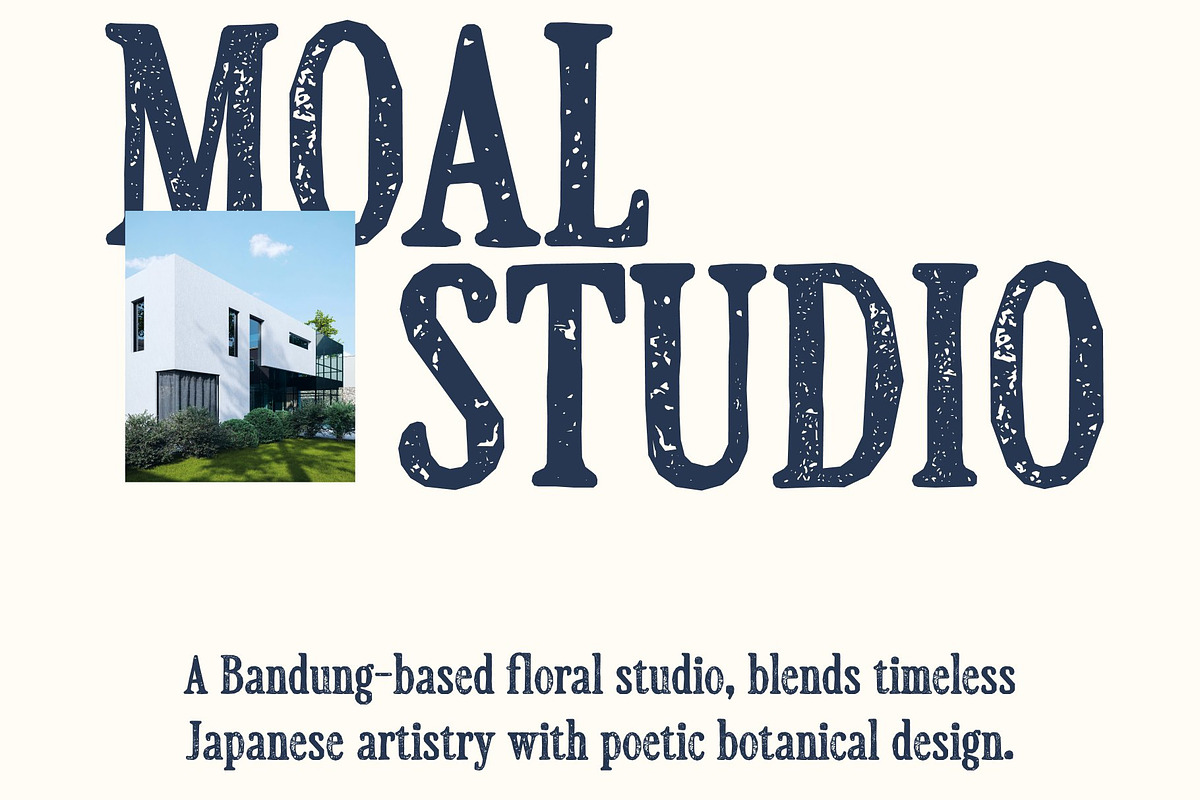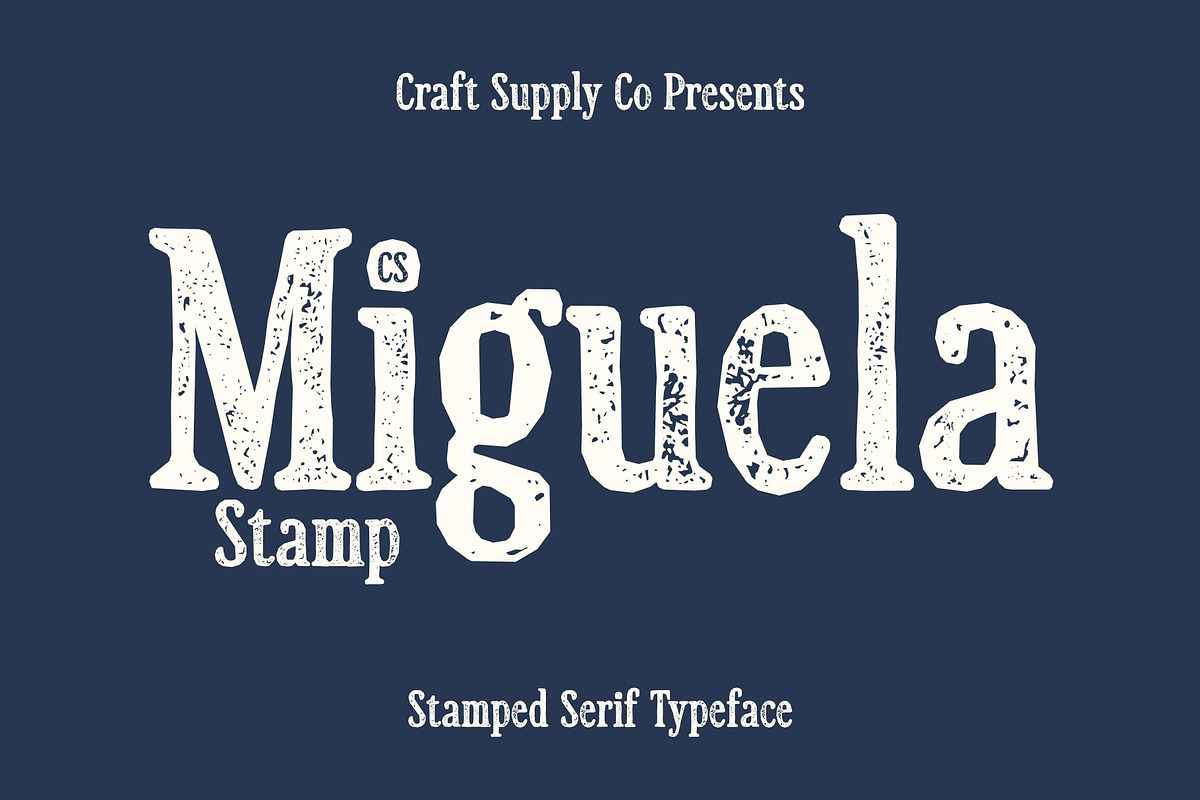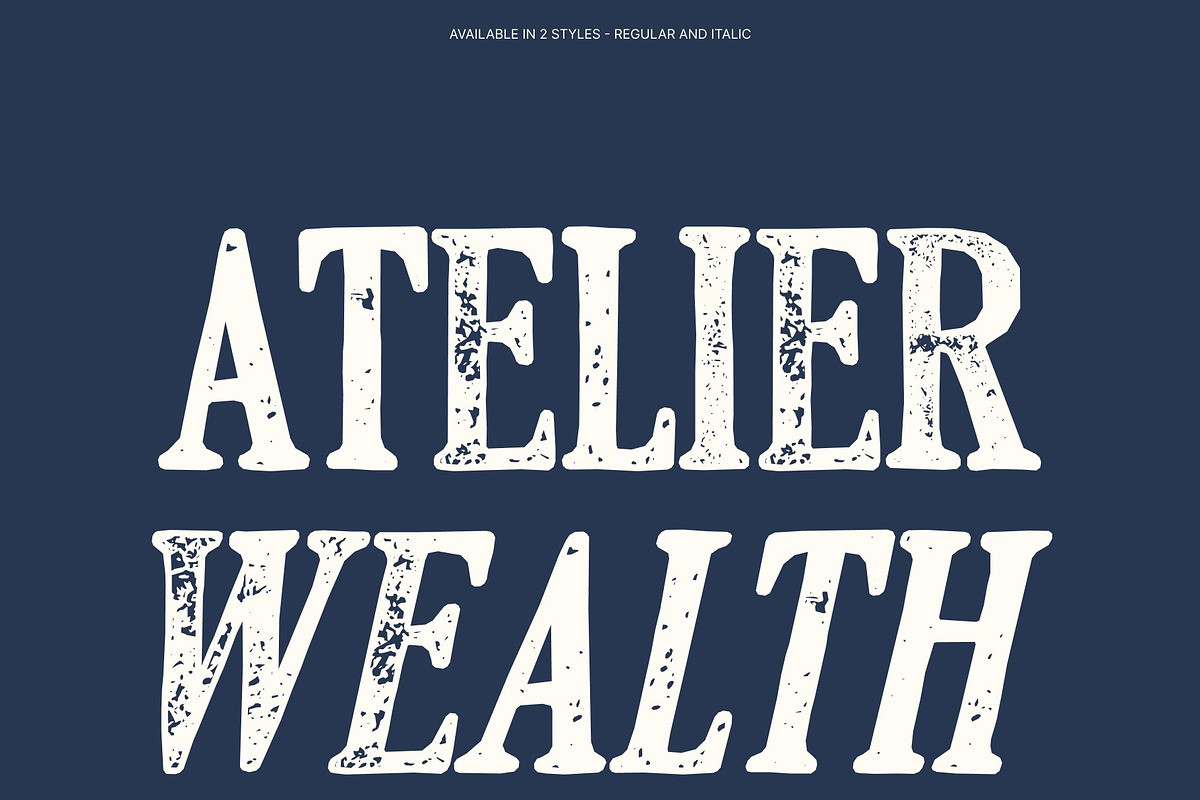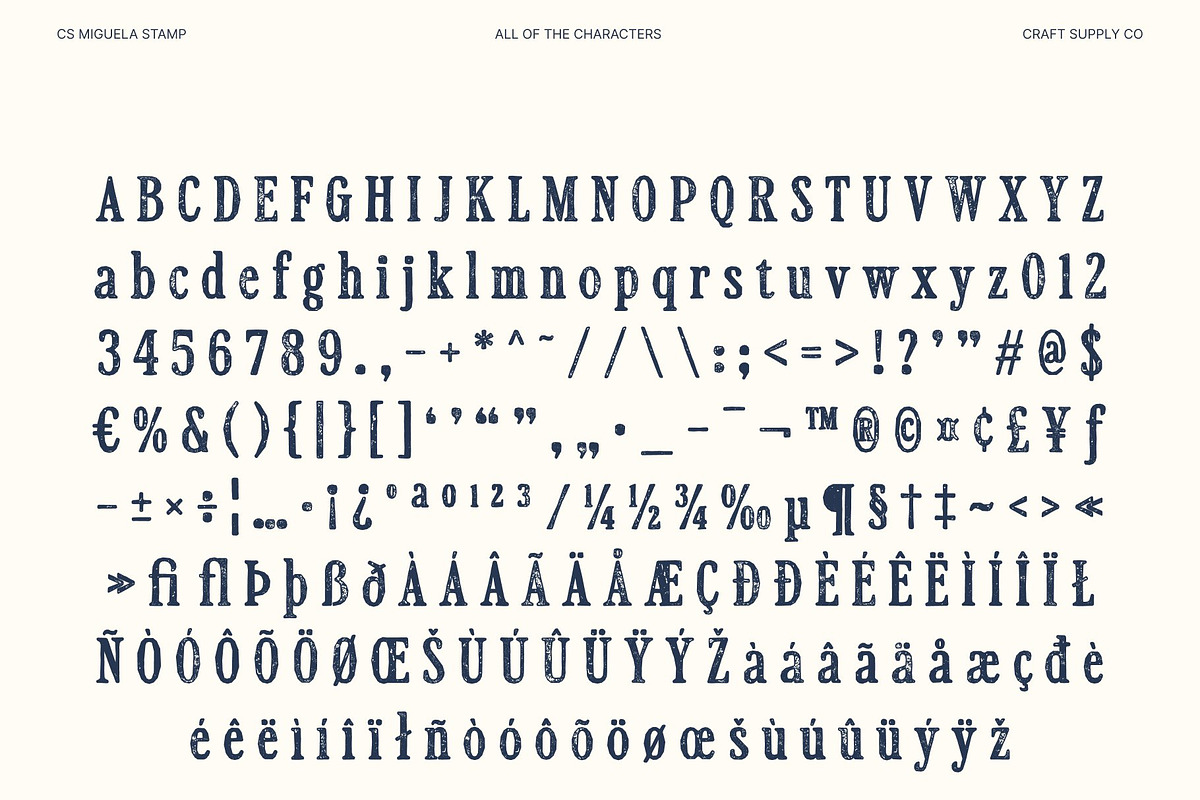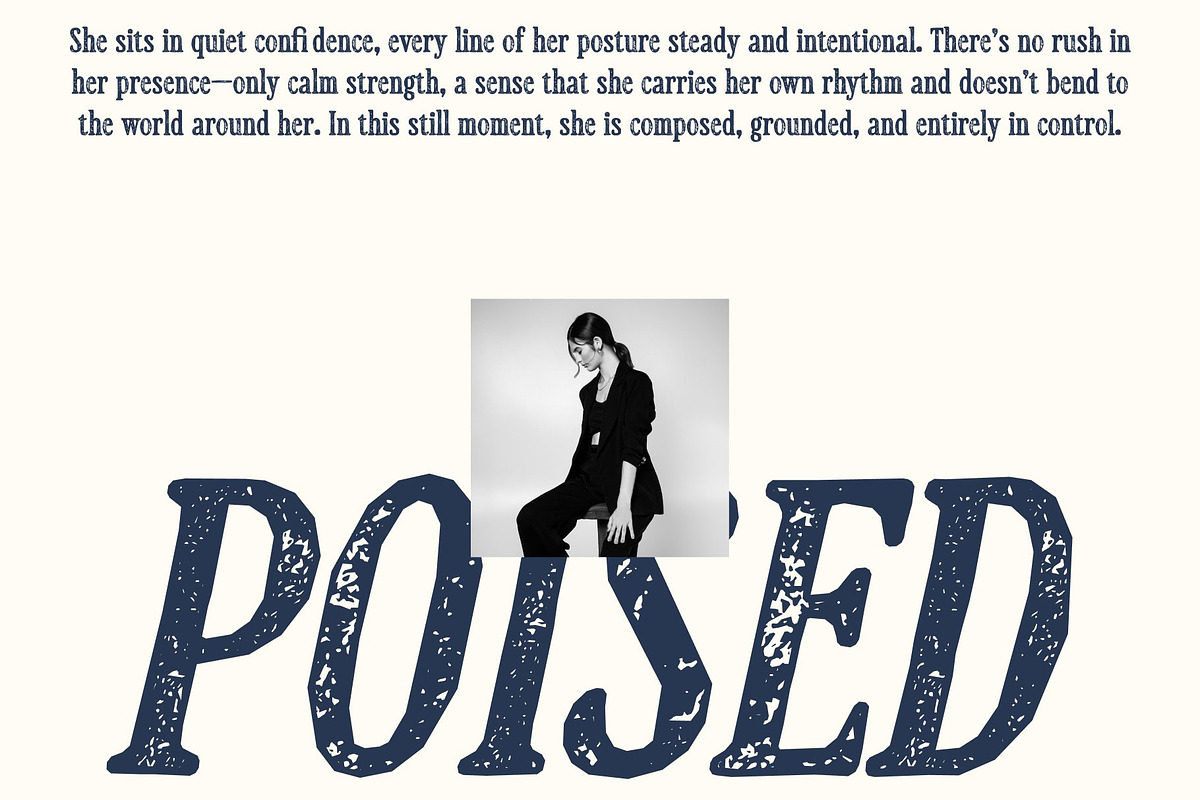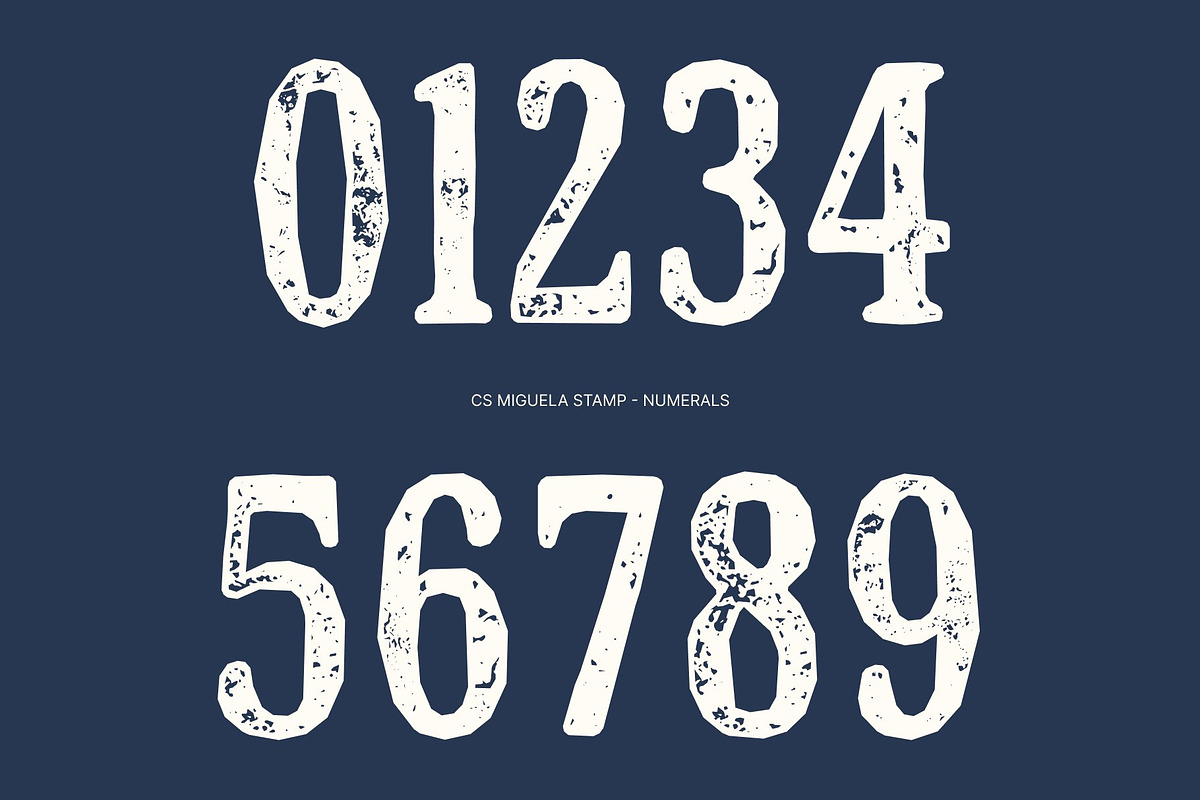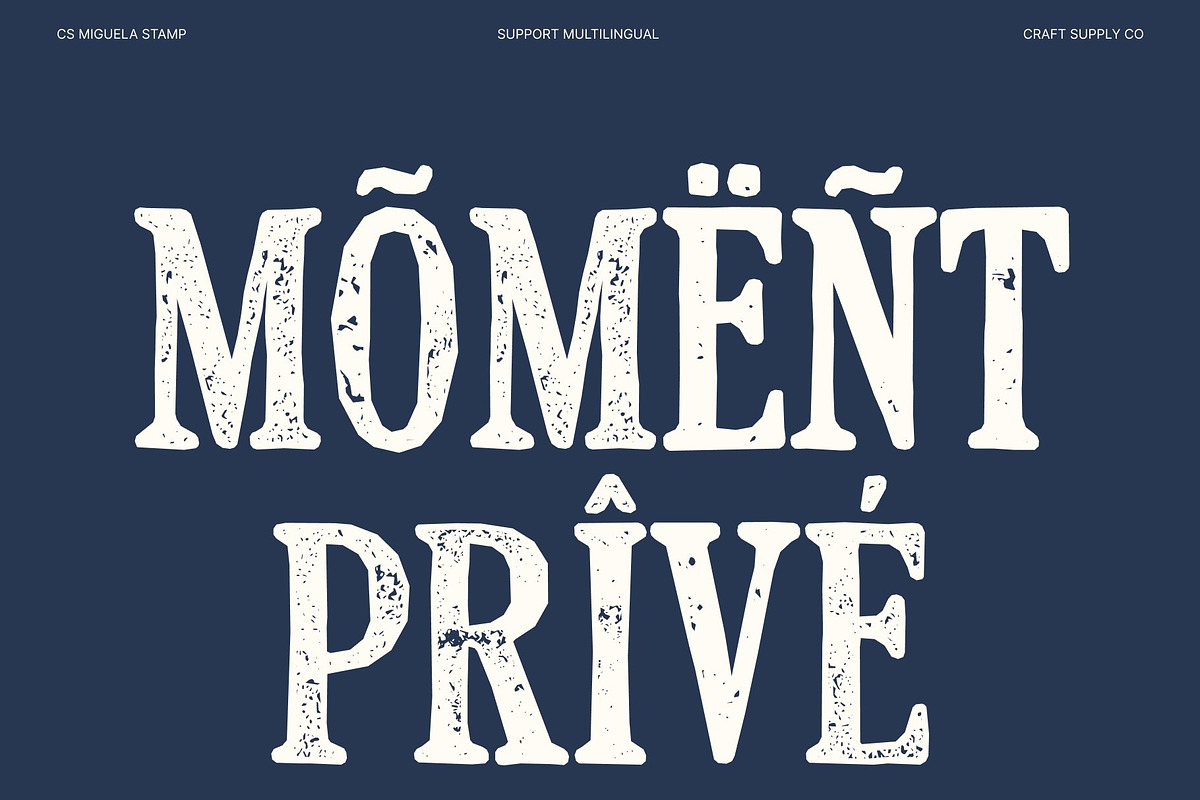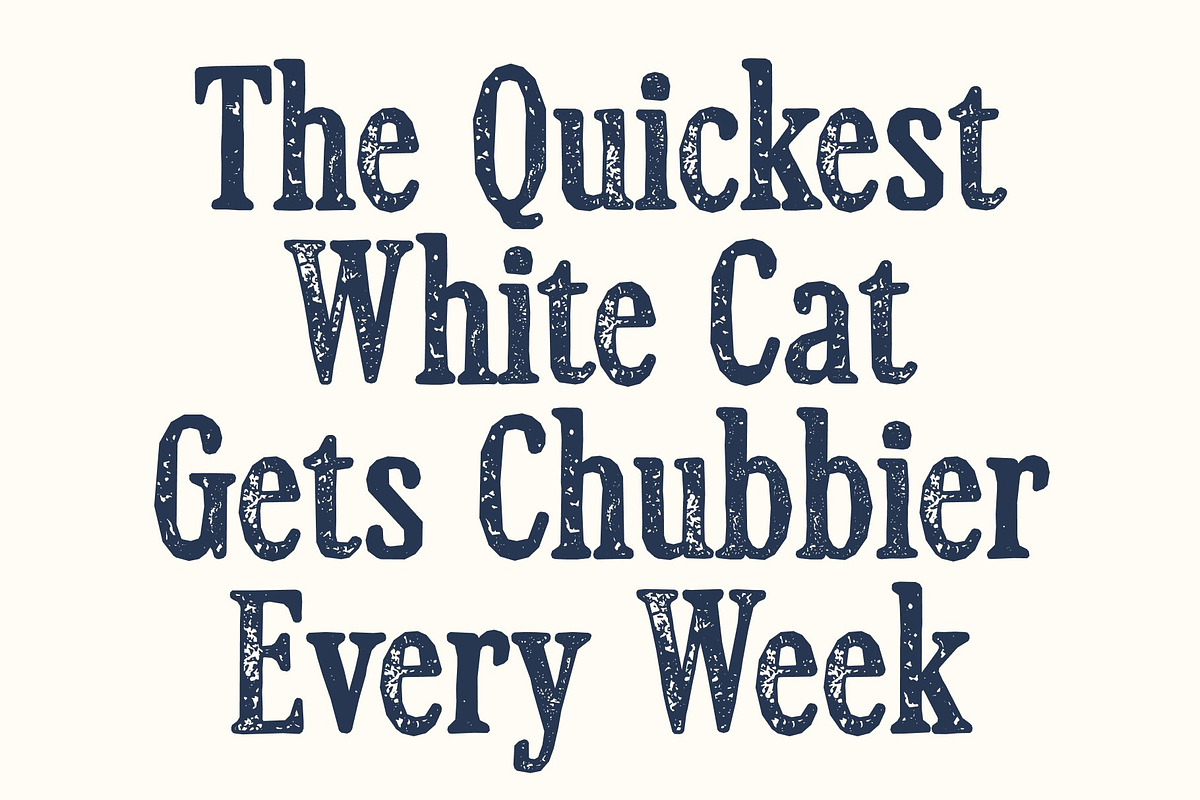
CS Miguela Stamp
CS Miguela Stamp – Modern Serif Font: Where Graceful Elegance Meets Artistic Texture
Slim Condensed Serifs with Contemporary Grace This is a modern serif font defined by its long, slim, and condensed serifs paired with a graceful contemporary structure. Its refined proportions create a sense of vertical elegance, allowing each letterform to feel poised and sophisticated. The delicate balance between thin strokes and controlled spacing gives the font a polished, high-end appearance ideal for refined visual compositions.
Elegant Form with Distinctive Presence This font combines classic serif influence with a modern sensibility. Its clean, elongated shapes enhance readability while maintaining a stylish and upscale tone. The font’s subtle sophistication makes it perfect for designs that require both clarity and a luxurious aesthetic.
Handcrafted Stamp Texture with Artistic Flair This font introduces a textured, handmade quality that adds depth and personality. The slightly imperfect finish brings warmth and authenticity, transforming the font into a more expressive and artistic tool. This unique detail enriches each character, making the typography feel more dynamic and visually engaging.
Perfect for Luxury Branding, Posters, and Editorial Layouts This font excels in luxury branding, posters, and editorial layouts that demand elegance with character. Its slender structure and textured finish make it ideal for logos, fashion campaigns, magazine designs, and premium packaging. With its blend of refinement and artistry, this font delivers a sophisticated typographic statement that feels both modern and timeless.
CS Miguela Stamp Regular
CS Miguela Stamp Italic